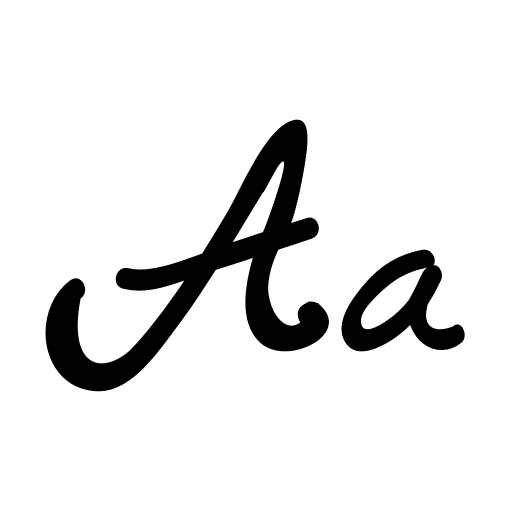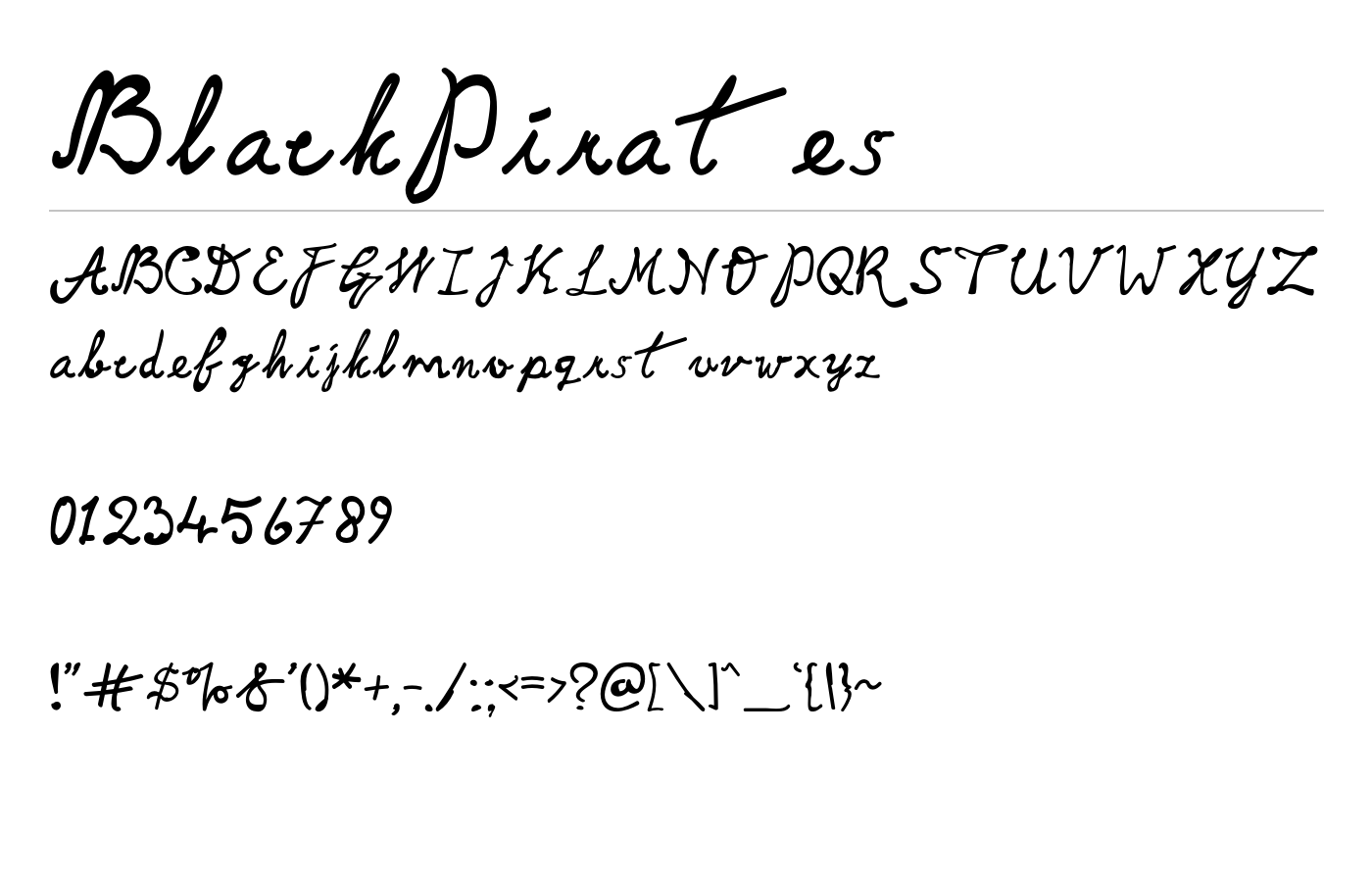
BlackPirates is a lively, handwritten script font featuring fluid strokes and a playful, slightly irregular style that gives it a personal and informal feel. Its casual elegance makes it ideal for creative projects, branding, and headers where a touch of uniqueness and charm is desired. This font works beautifully for designs that want to convey warmth and personality while maintaining clear readability.
BlackPirates Font
About BlackPirates Font